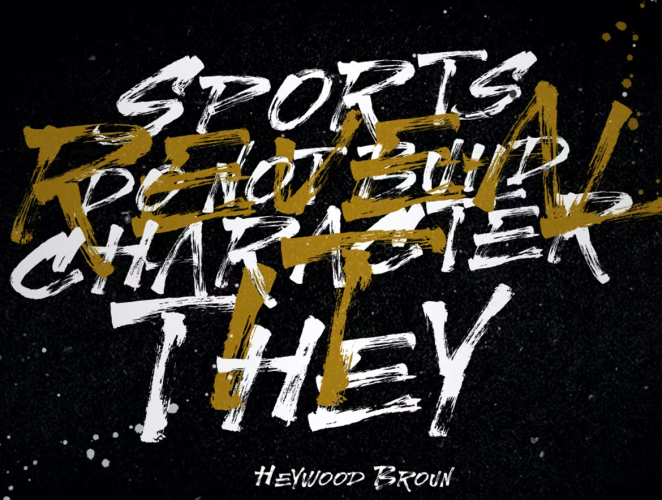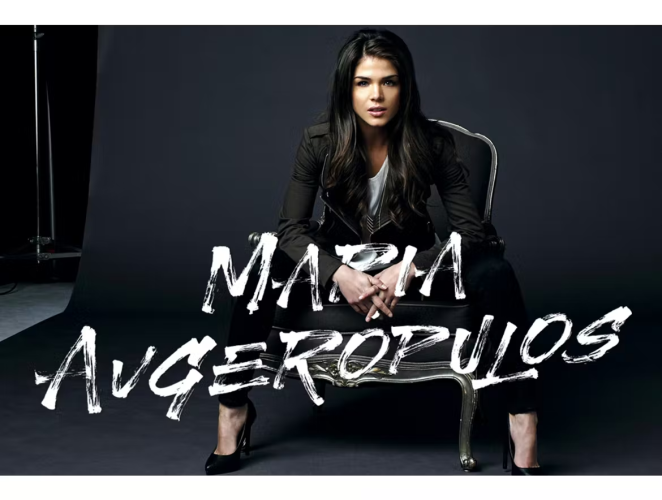
Rise & shine Font
Rise & shine Typeface was inspired from ink & tints manual handdrawn brush to make a natural messy, make a stylish design, help to good display, uses for labeling, clothing, movie sceen, film title, gigs, or cover album,
Rise & shine Font is a Script And Handwritten font that brings a professional and versatile look to your projects. Rise & shine Typeface was inspired from ink & tints manual handdrawn brush to make a natural messy, make a stylish design, help to good display, uses for labeling, clothing, movie sceen, film title, gigs, or cove.